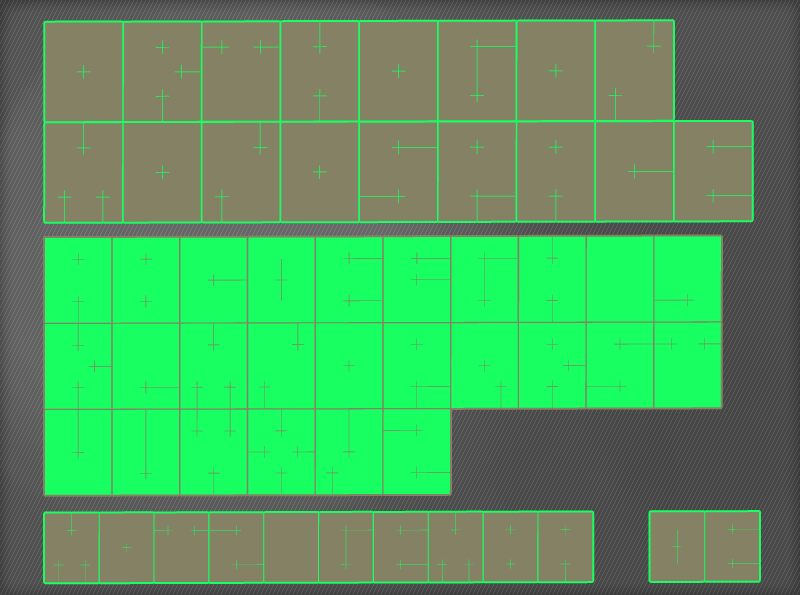
Orthogon by Stefan Motzigemba is a free geometric dingbat font built from slender upright rules and small cross-shaped marks. Its spare, modular forms have the exactness of drafting symbols, with consistent line weight and crisp right-angle construction.
Technology brands and architecture studios can use these symbols to develop logos, pattern systems, and wayfinding graphics with a measured, technical tone. They also suit electronic music posters and album packaging, where the marks can function as diagram-like ornament. Across these uses, the link is an interest in grids, coordinates, and constructed space.